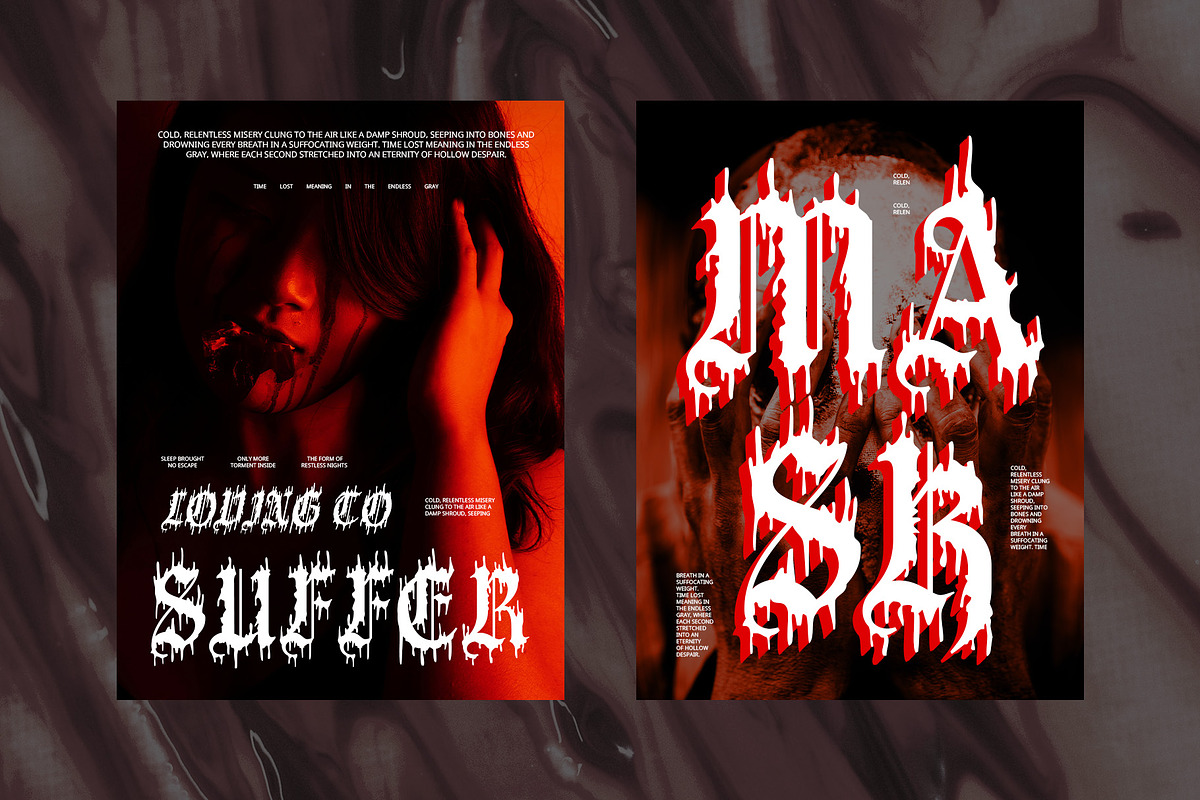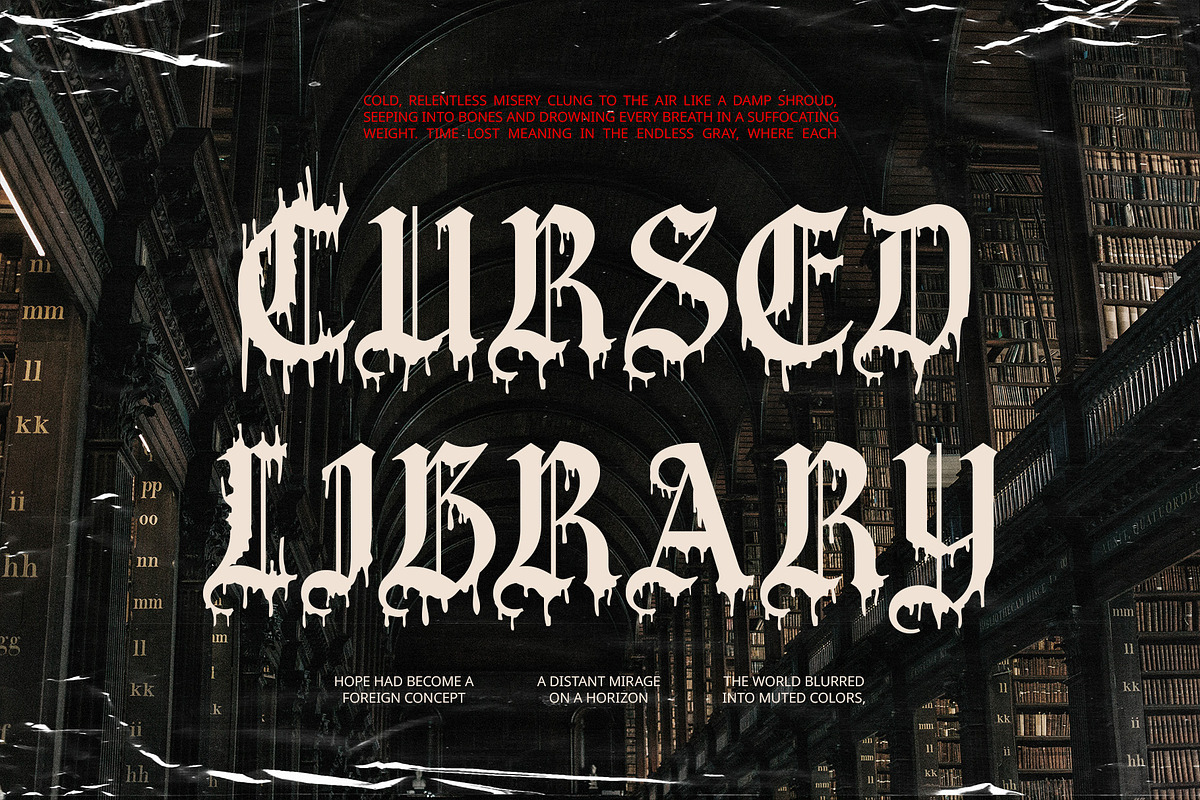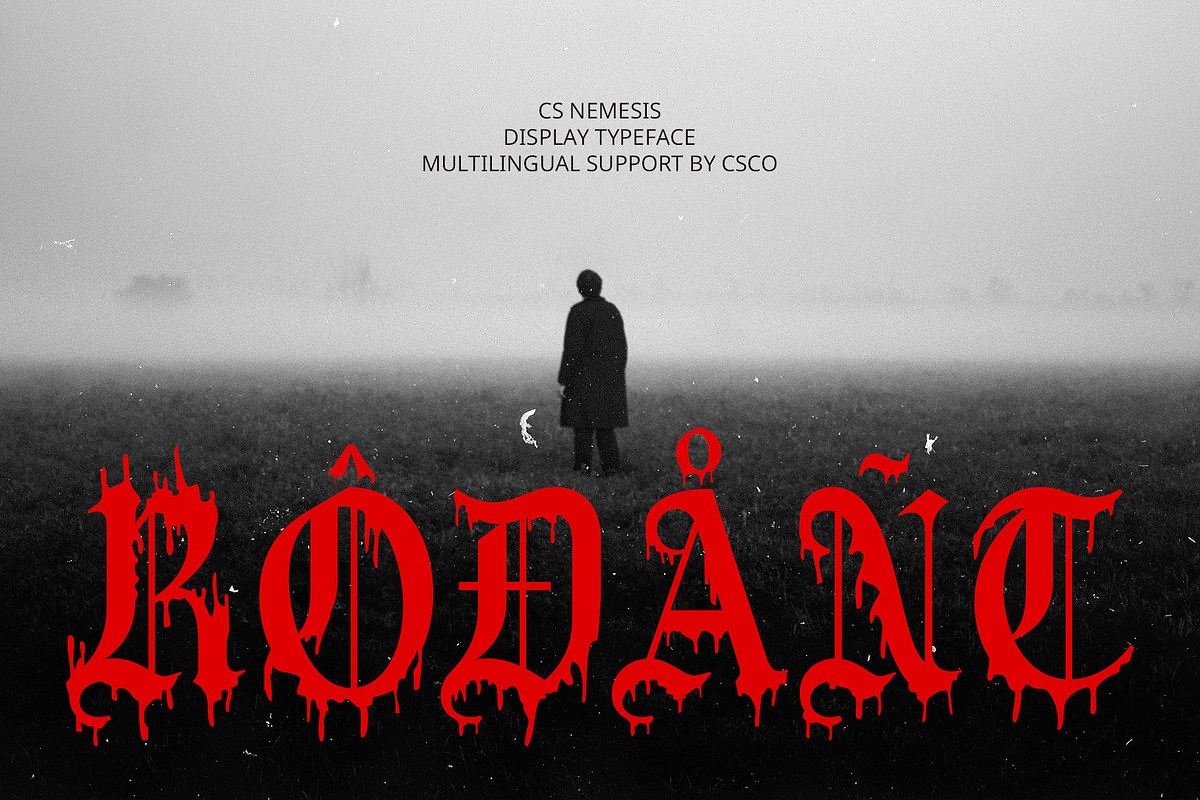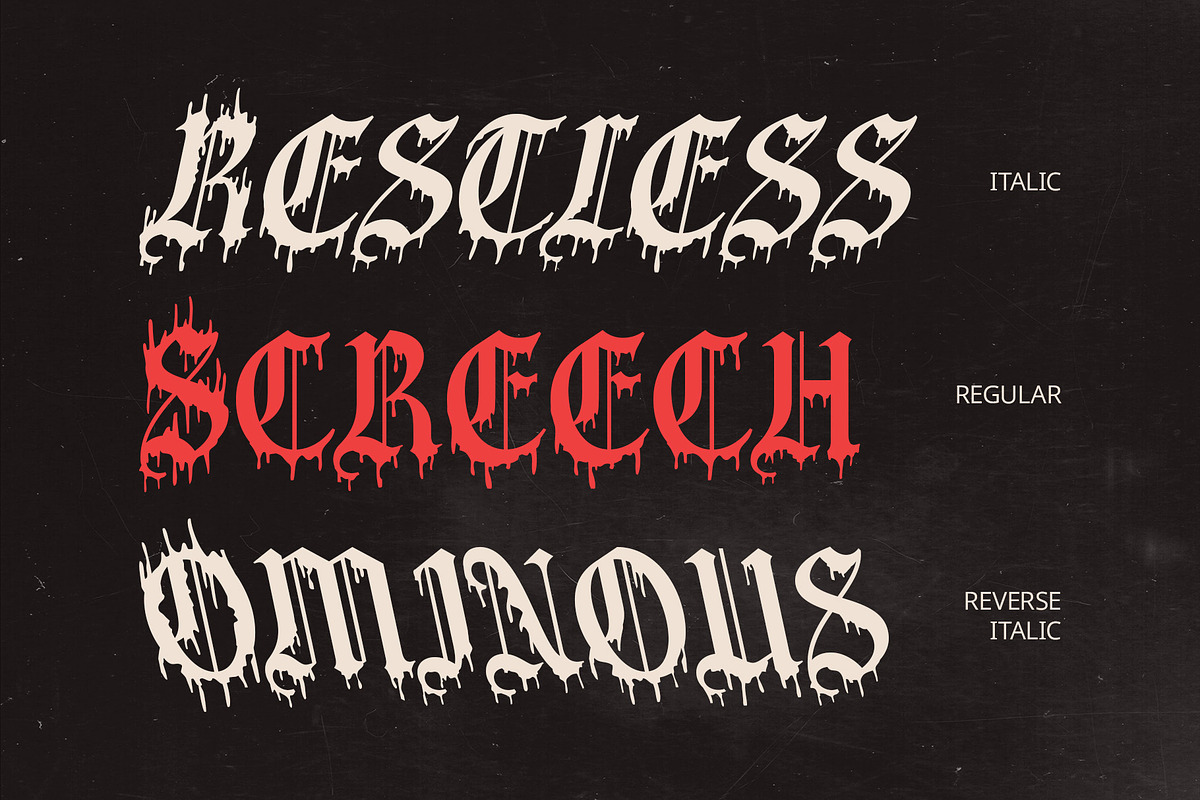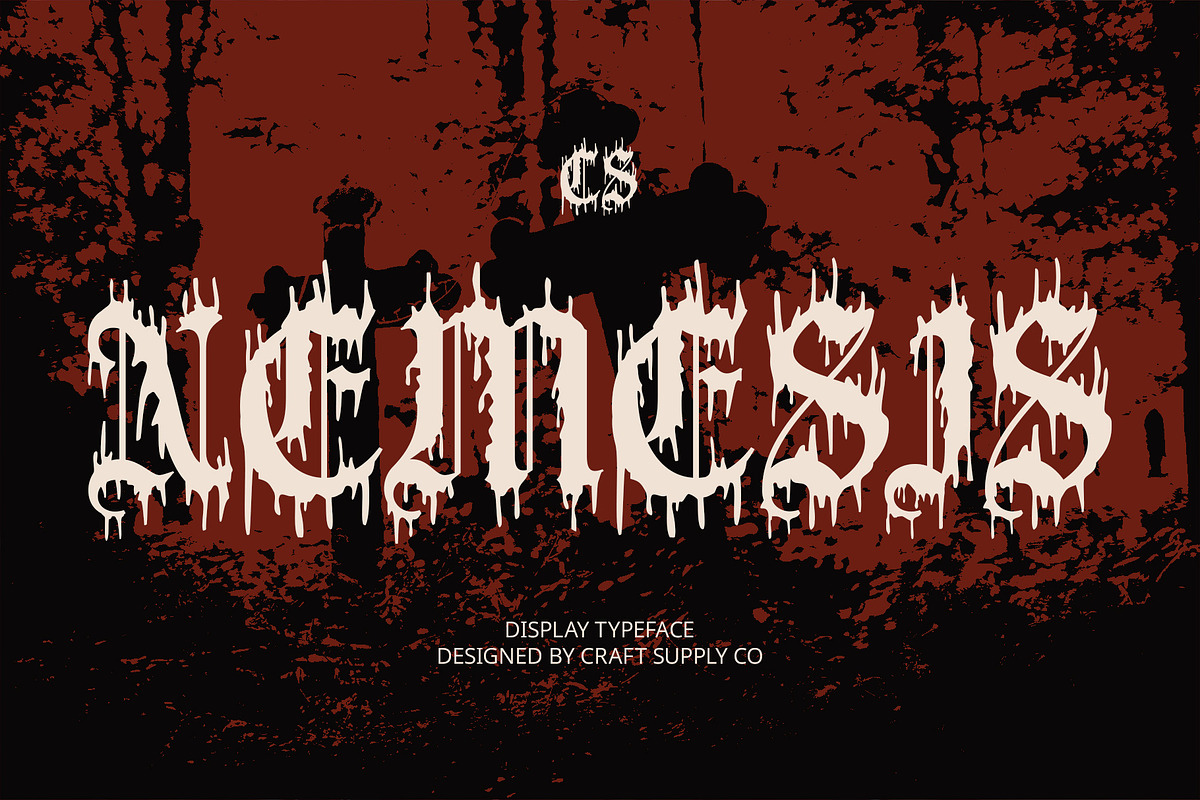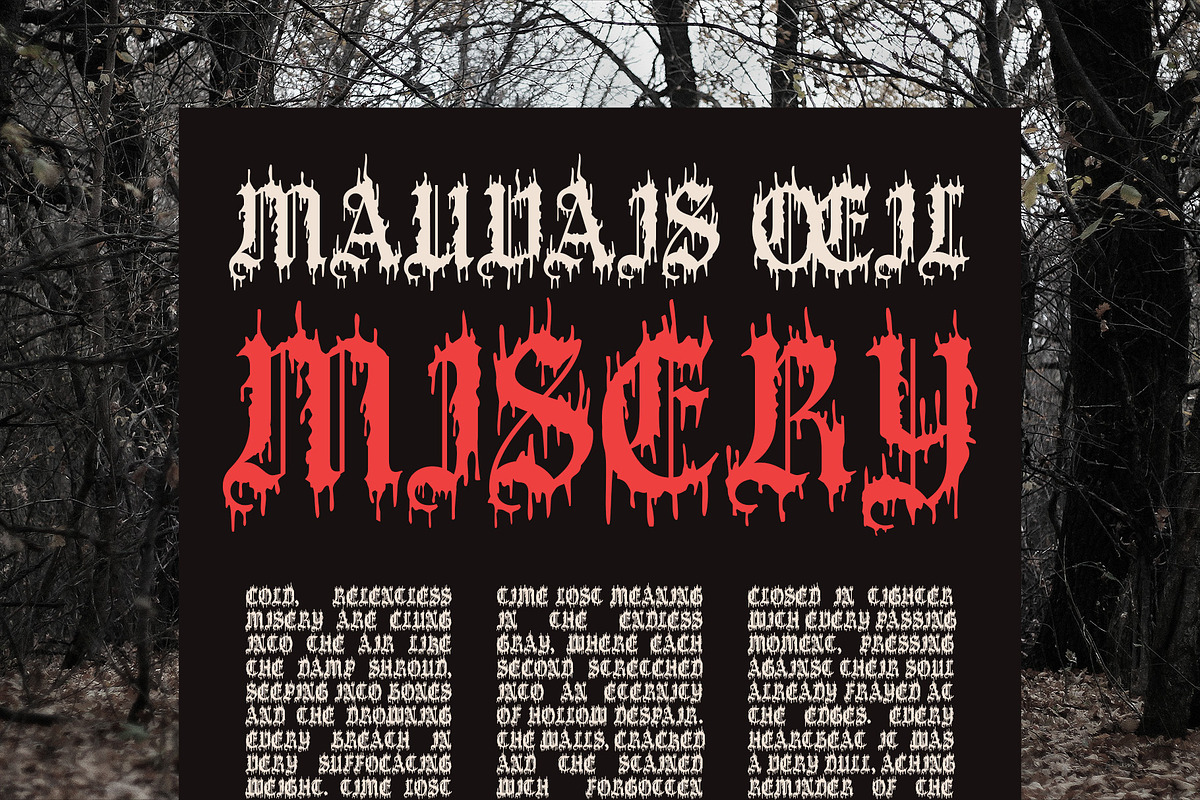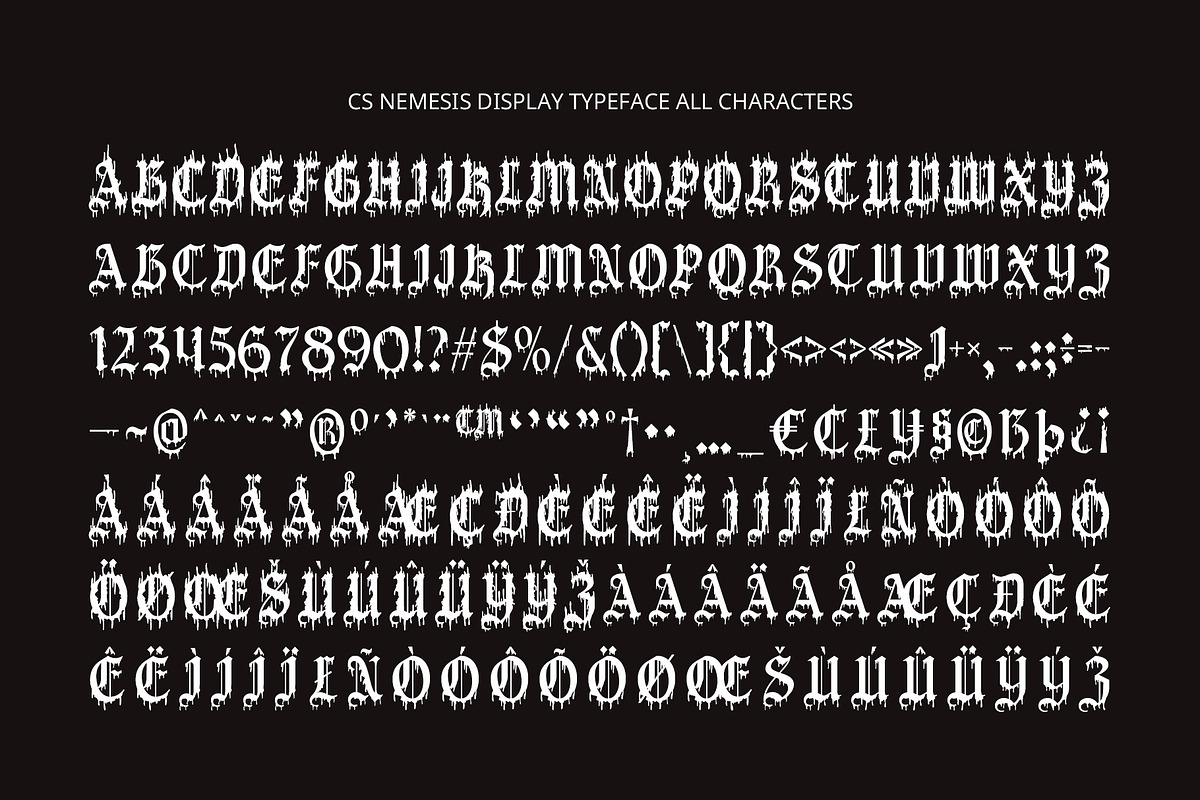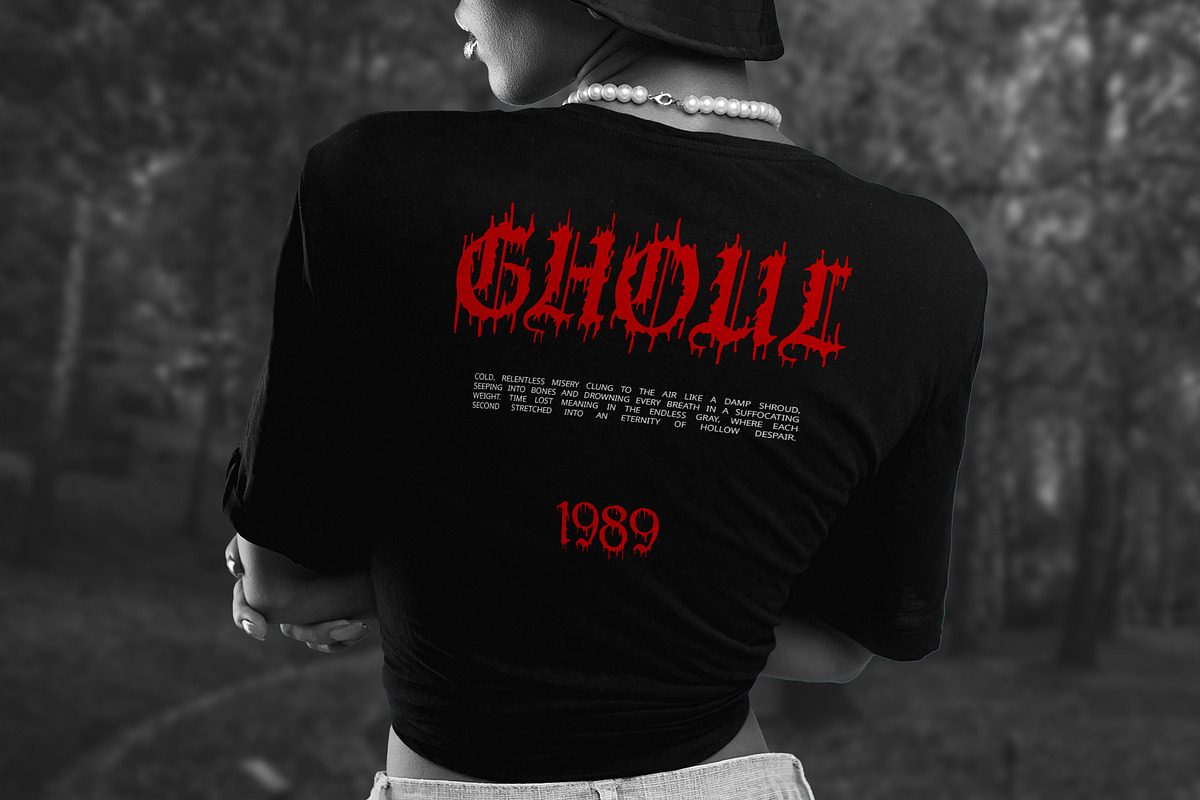
CS Nemesis – Black Metal Font
CS Nemesis – A Brutal Black Metal Display Font
Sharp, Spiked, and Aggressive Letterforms CS Nemesis is a black metal display font with razor-sharp edges, spiked extensions, and branched strokes, embodying the essence of extreme metal aesthetics. Its jagged and chaotic structure reflects the raw energy and intensity of the genre, making it a perfect choice for projects that demand a rebellious, unrelenting presence.
Dark, Mystical, and Gothic Influence Inspired by occult symbols, gothic calligraphy, and mystical elements, CS Nemesis exudes a dark, eerie, and enigmatic atmosphere. Its highly expressive details create an ominous and ritualistic feel, making it ideal for metal band logos, underground music promotions, and horror-inspired designs.
Perfect for Extreme and Alternative Designs With its bold, aggressive, and chaotic appearance, CS Nemesis is perfect for concert posters, album covers, horror movie titles, and extreme branding. Its distinctively raw and unpolished form ensures that every design it touches exudes power, rebellion, and unapologetic attitude.
A Font That Commands Attention CS Nemesis isn’t just a font—it’s an artistic statement of defiance and intensity. Whether you’re designing for black metal aesthetics, dark fantasy projects, or experimental underground branding, this font delivers an intense, haunting, and unforgettable impact.